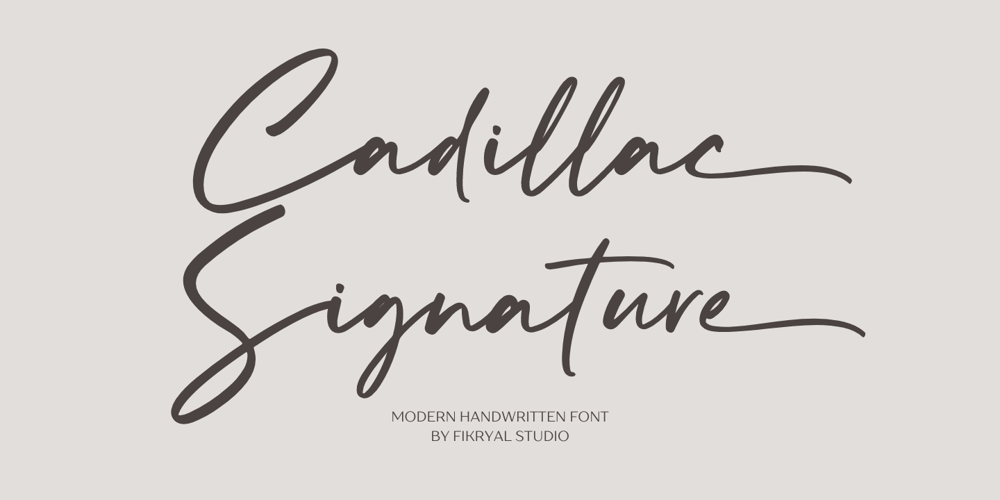
Cadillac Signature
Cadillac Signature font
Cadillac Signature Font Family was designed by Muhammad Fikry and published by Fikryal. Cadillac Signature contains 1 styles and family package options. Cadillac Signature – is a modern handwritten font.This font is made in a modern style, very casual, and suitable for your various design needs. It’s perfect for logo, branding, title, social media posts, advertisements, product packaging, product designs, label, photography, watermark, special event, magazine, web designs, etc.Features : Cadillac Signature ( Uppercase, Lowercase ) Ending Swashes multilingual support Ligatures If you have any questions please don’t hesitate to contact mefollow my Instagram: fkryallThank you